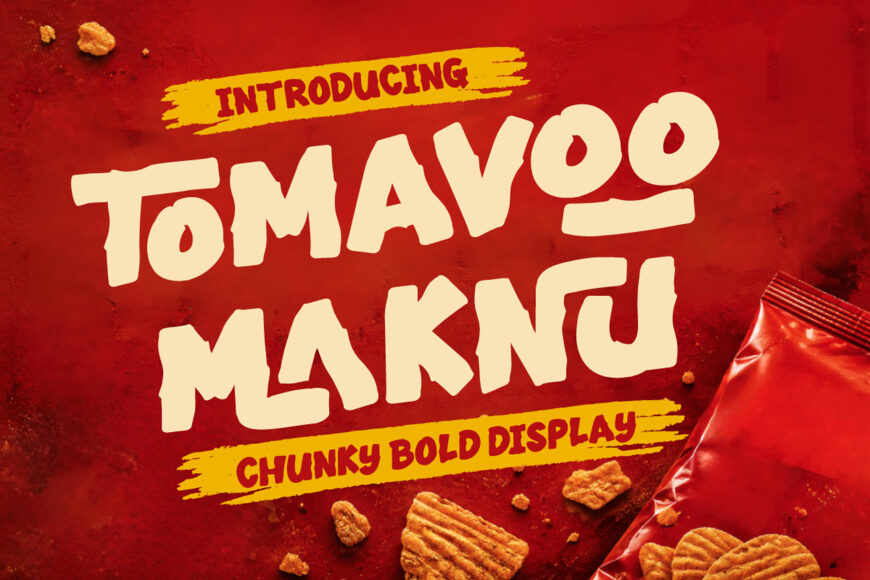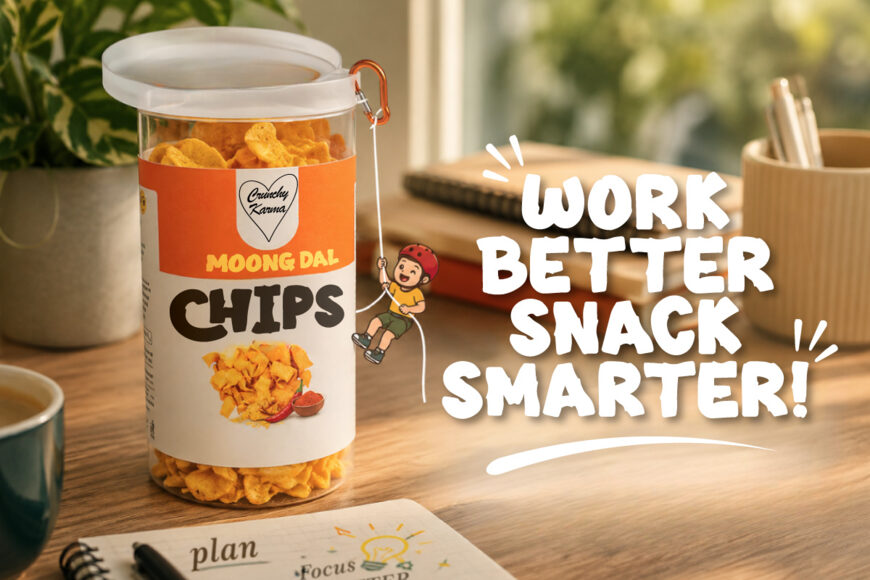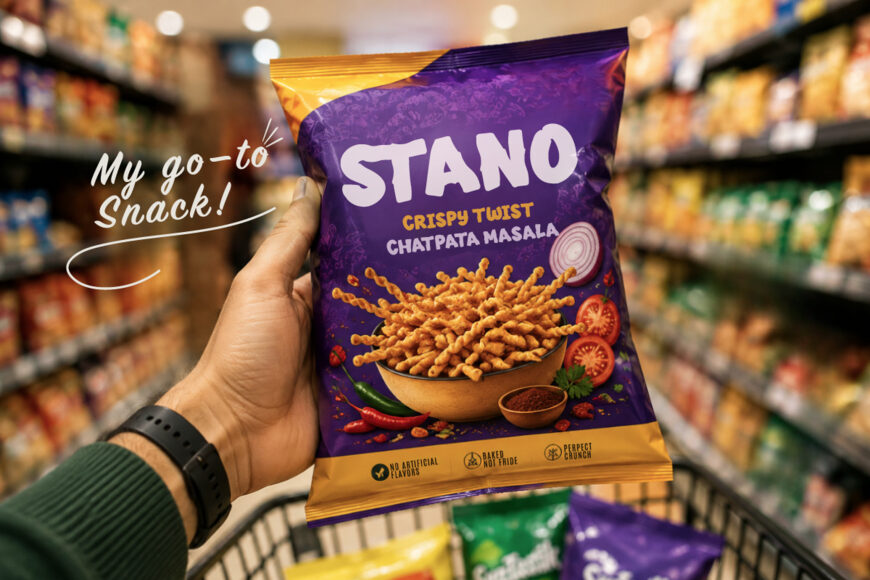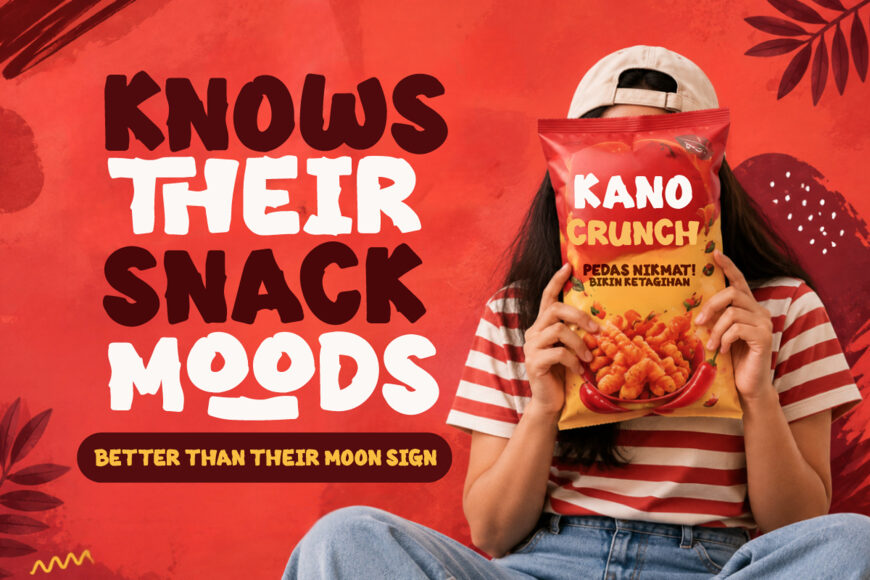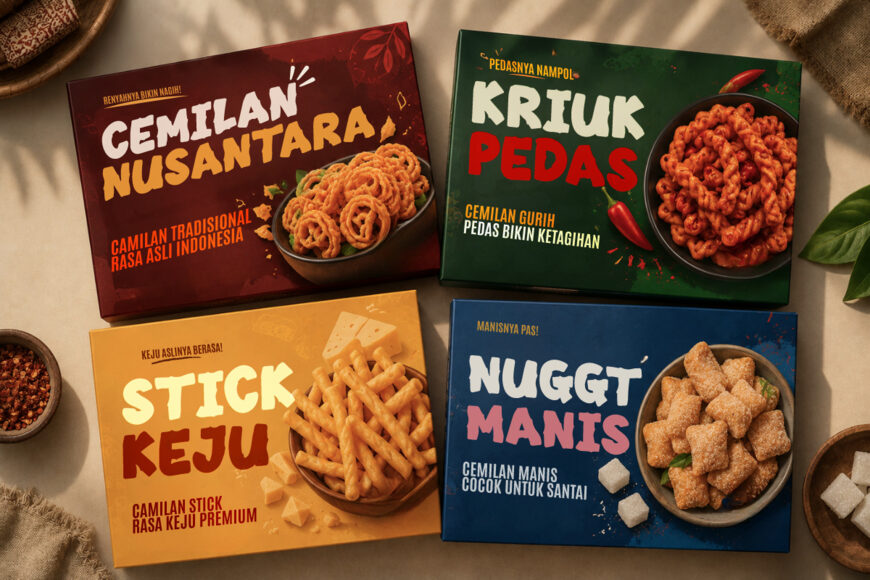
Tomavoo Maknu Font
Tomavoo Maknu is a bold, sturdy, and energetic display font rich in character and culinary appeal—designed specifically for the fast-paced food, beverage, and FMCG industries. With its bold letterforms, smooth organic curves, and dynamic, cheerful vibe, this typeface is crafted to instantly grab attention amidst the clutter of retail and supermarket shelves.
Engineered for maximum visual impact at the point of sale, Tomavoo Maknu is ideal for snack pouches, foil packaging, ready-to-eat meal containers, milk cartons, and in-store promotional materials.